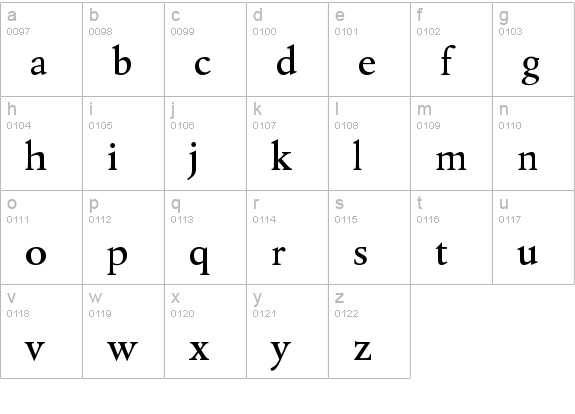
DTLAlbertinaT-Medium is a balanced, medium-weight variant in the DTLAlbertinaT typeface family \xE2\x80\x94 well suited to sub-headlines, navigation, and balanced editorial work.
DTLAlbertinaT-Medium is a modern and stylish font that exudes sophistication and elegance. Its sleek lines and balanced proportions make it perfect for a wide range of design projects, from logos to branding to editorial layouts. The medium weight of this font strikes the perfect balance between readability and impact, making it a versatile choice for both display and text use. What sets DTLAlbertinaT-Medium apart is that it is available for free download at FontsMarket.com. This means that you can easily access this high-quality font and use it in your projects without any cost. Whether you're a professional designer looking for a new addition to your font library or a hobbyist working on a personal project, DTLAlbertinaT-Medium is a fantastic option that won't break the bank. Download it today and elevate your designs with this stunning typeface.